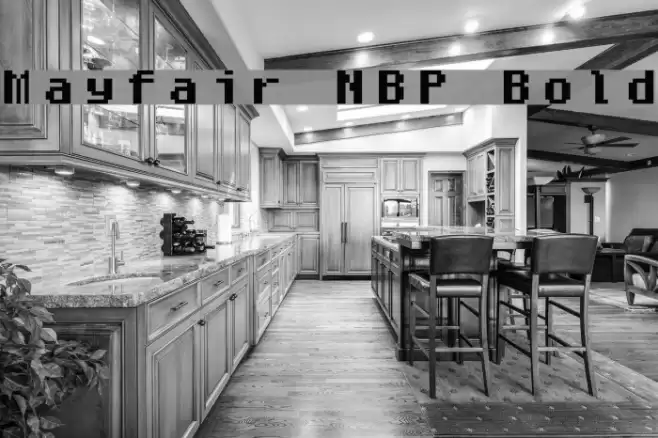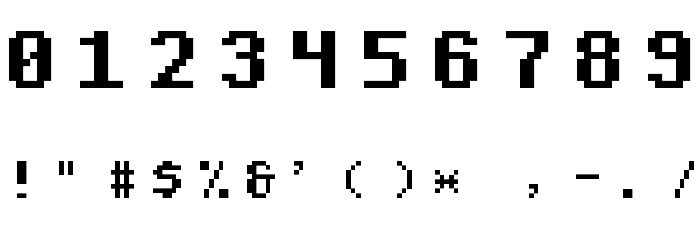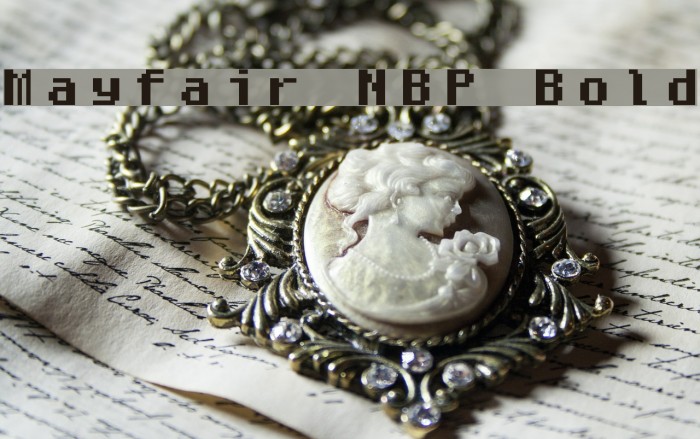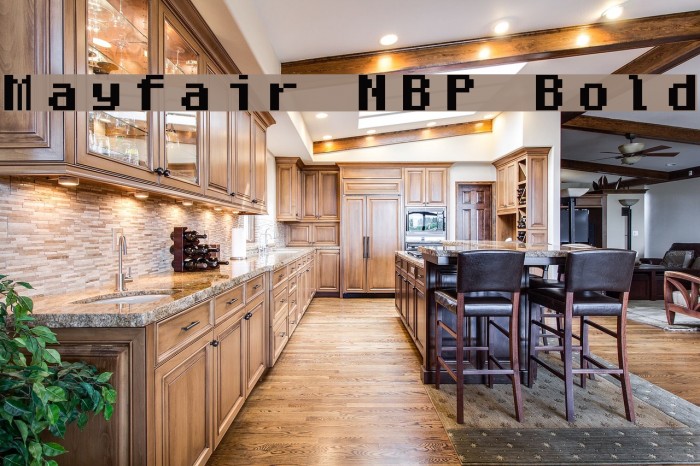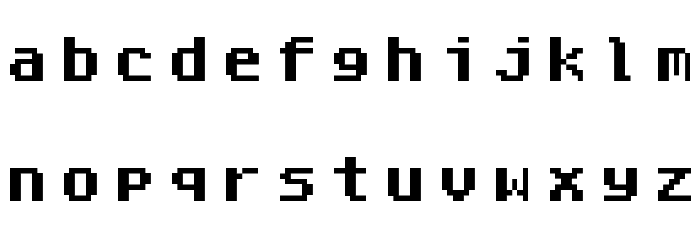
Mayfair NBP Bold Font
Mayfair NBP Bold Description
This font exhibits a bold, pixelated style reminiscent of early digital and arcade aesthetics. Each character is constructed with a blocky, grid-like structure, giving it a distinctly retro and digital appearance. The uppercase and lowercase letters maintain a consistent height, contributing to a uniform look across the text. The numerals and special characters follow the same pixelated design, ensuring visual coherence. This font's simplicity and geometric form make it highly legible, even at smaller sizes. Its nostalgic charm is ideal for projects that aim to evoke a sense of vintage digital technology or gaming culture.
A bold, pixelated font with a retro digital aesthetic from Uncategorized fonts.
- Proposed Projects: Ideal for retro-themed video games, digital art projects, or any design that seeks to capture the essence of early computing and arcade games.
- Overall Style: Vintage
- Use Case: Logos, Headlines, Digital Art